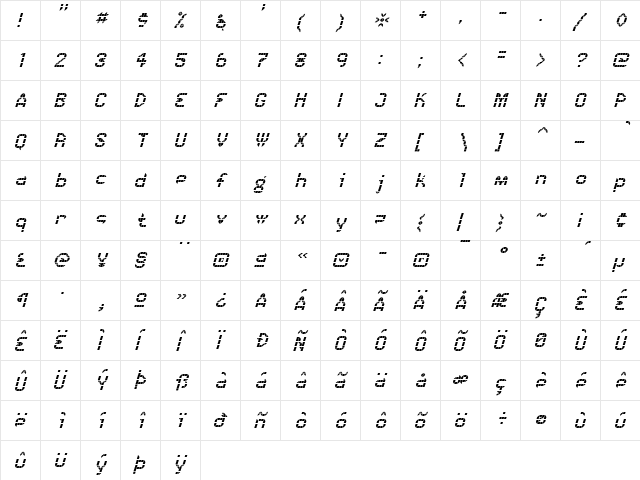
IsoOpto Oblique Font Preview
IsoOpto Oblique
IsoOpto Oblique Font Details
Design Context for IsoOpto Typeface
IsoOpto takes a measured approach to typography — its balanced proportions and neutral character make it a reliable workhorse for both digital and print work. Its italic angle brings a sense of urgency and motion to the letterforms.
Pro Tip: Try IsoOpto for annotation and caption copy alongside an upright companion — the contrast in angle creates a dynamic but ordered typographic system.